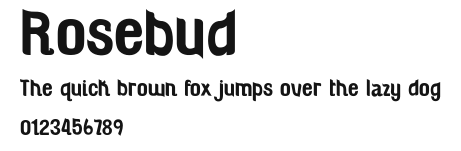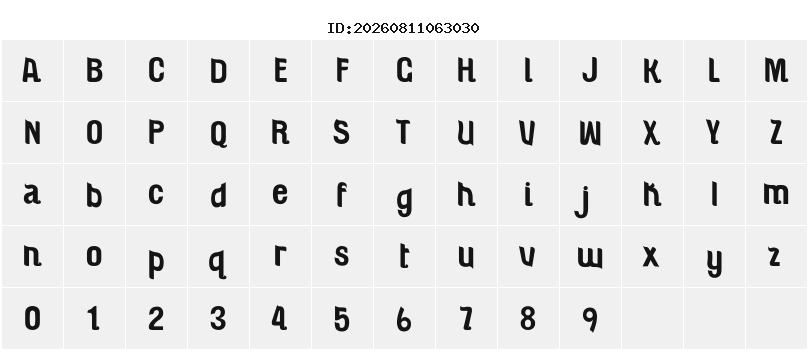
• Font Name: Rosebud
• Full Font Name: Rosebud
About Rosebud.ttf
Rosebud.ttf is a modern, elegant sans-serif font designed for ultimate readability and visual harmony. Perfect for branding, headlines, web design, and print materials.